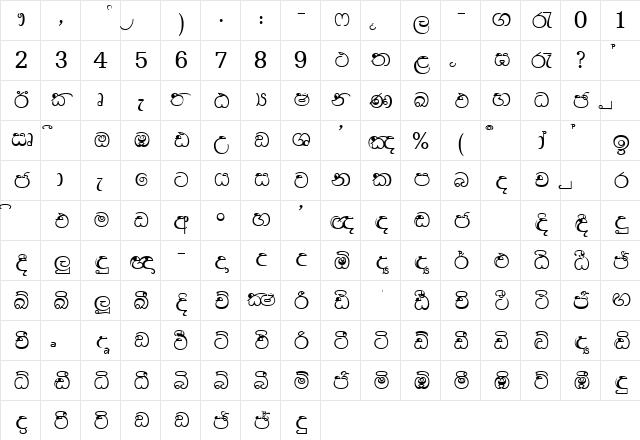
DL-Lihini Normal
Design Context for DL-Lihini Typeface
DL-Lihini is a composed and adaptable typeface that performs quietly and consistently across a wide range of design contexts.